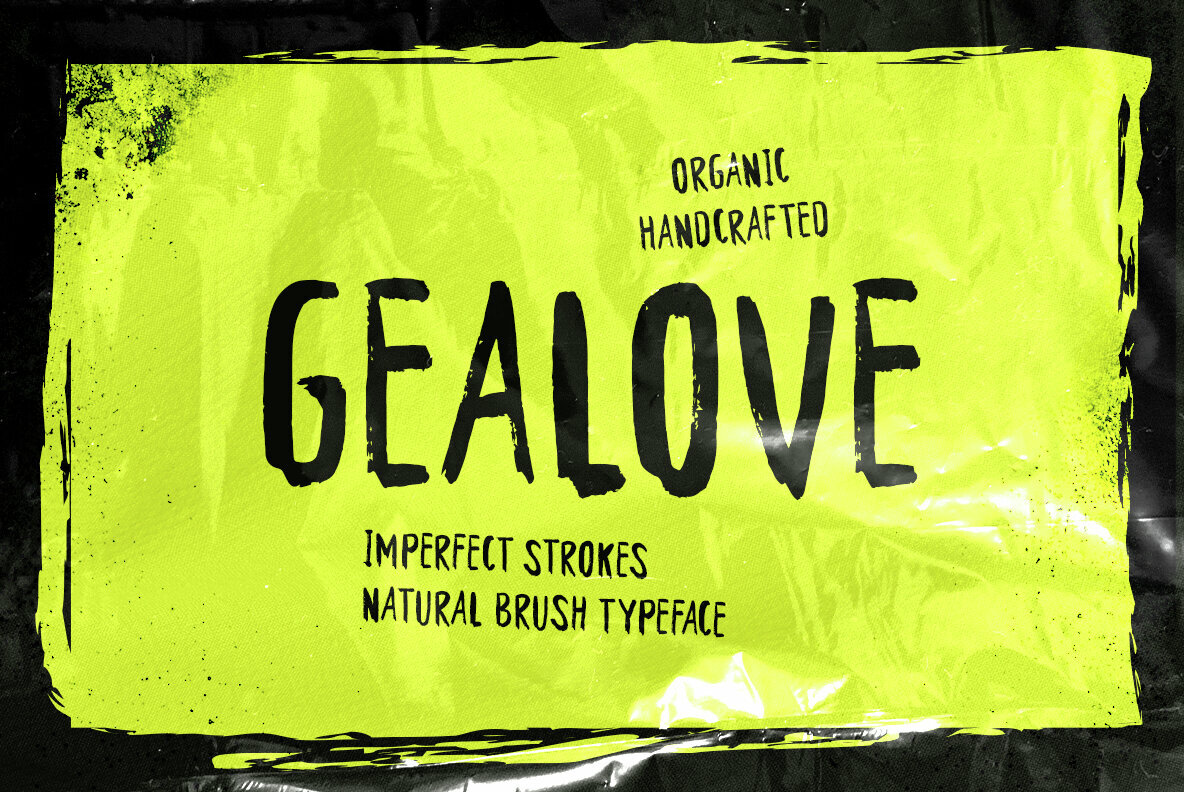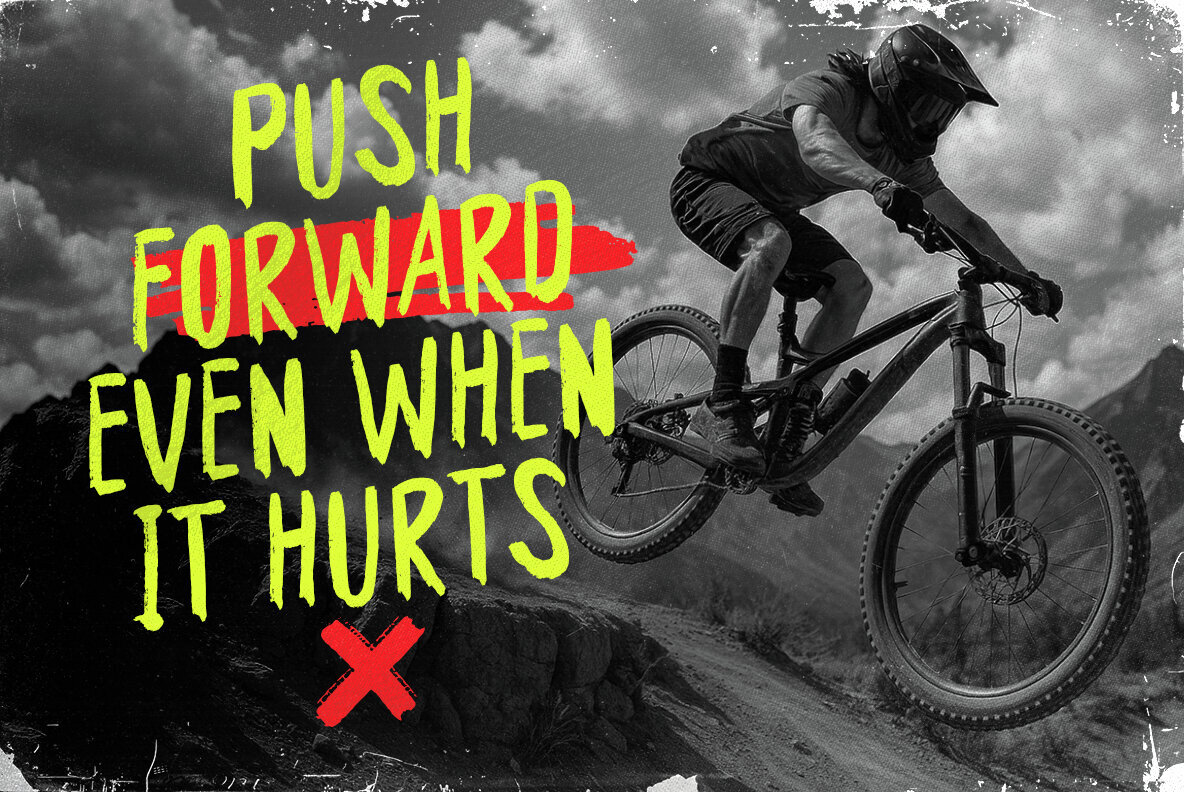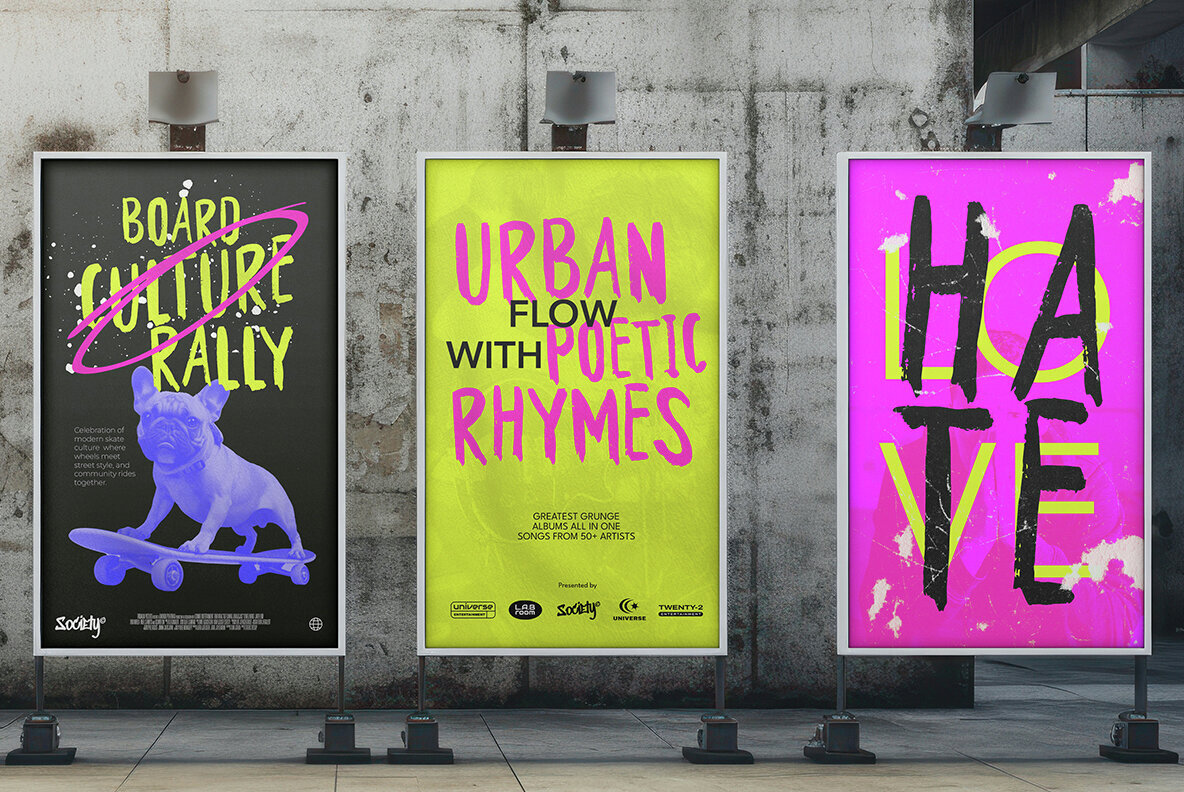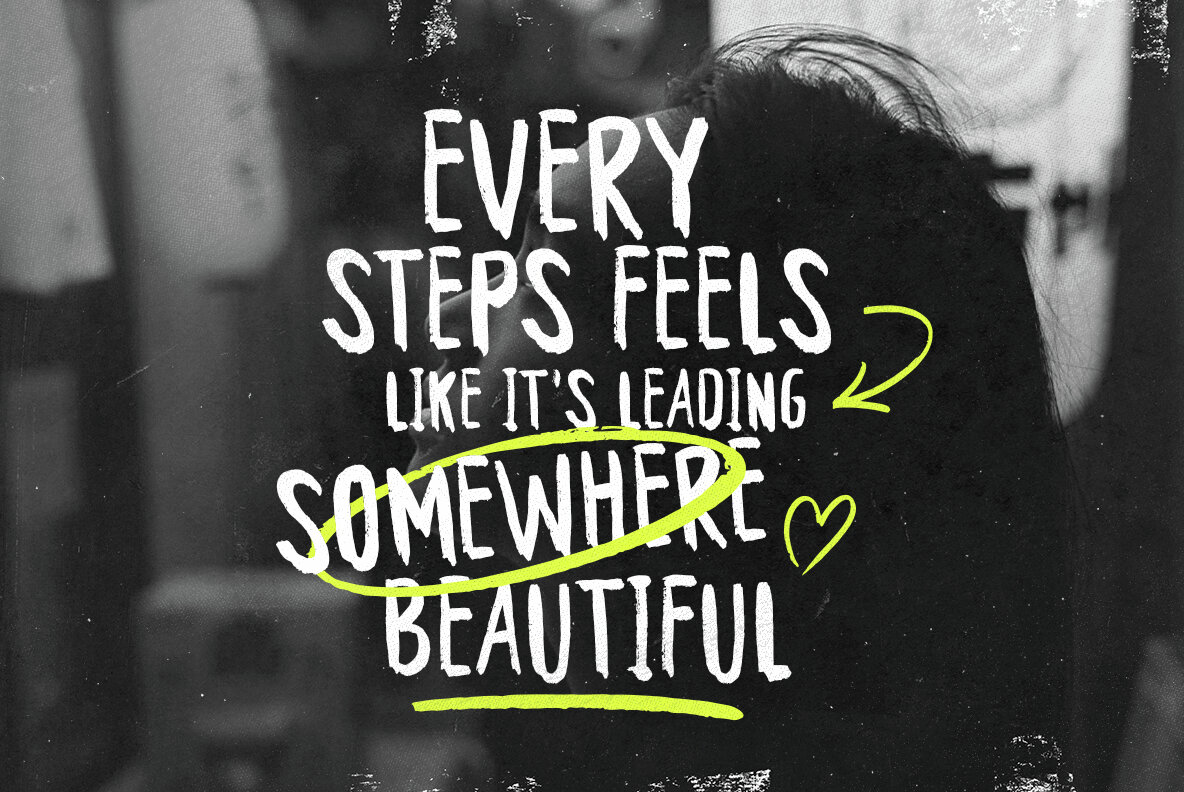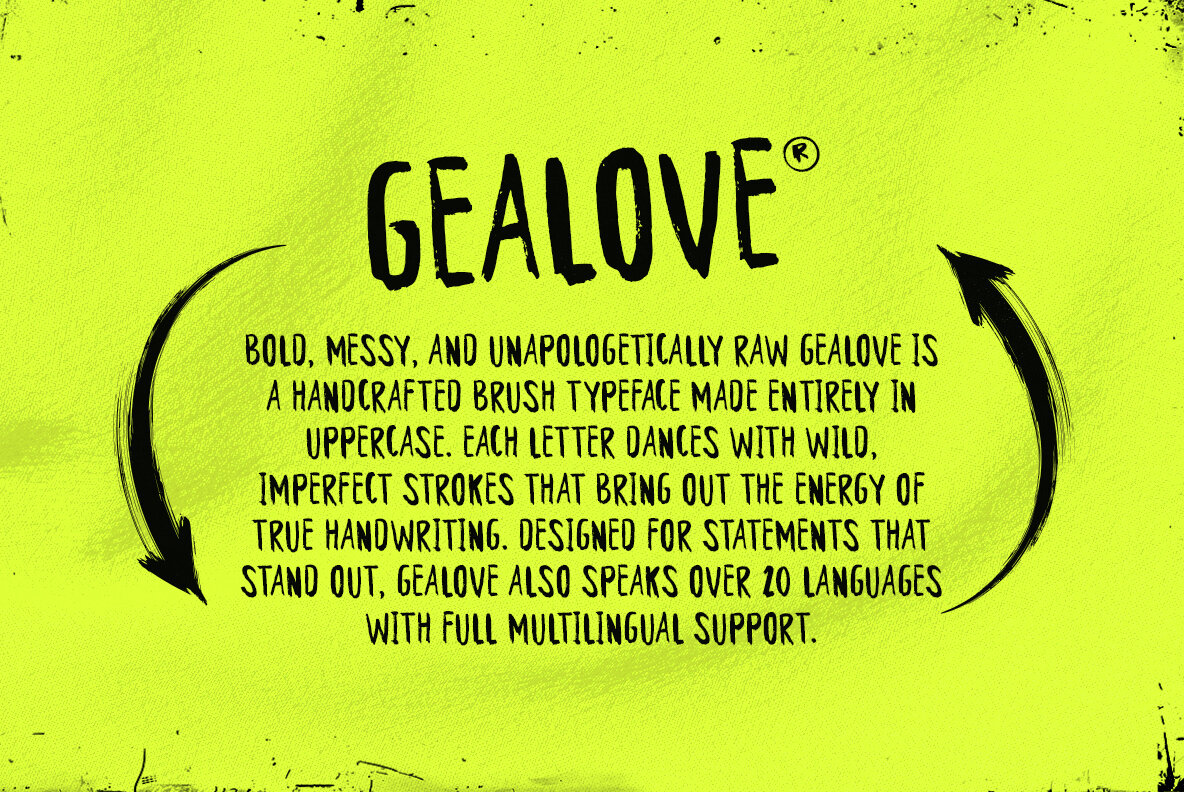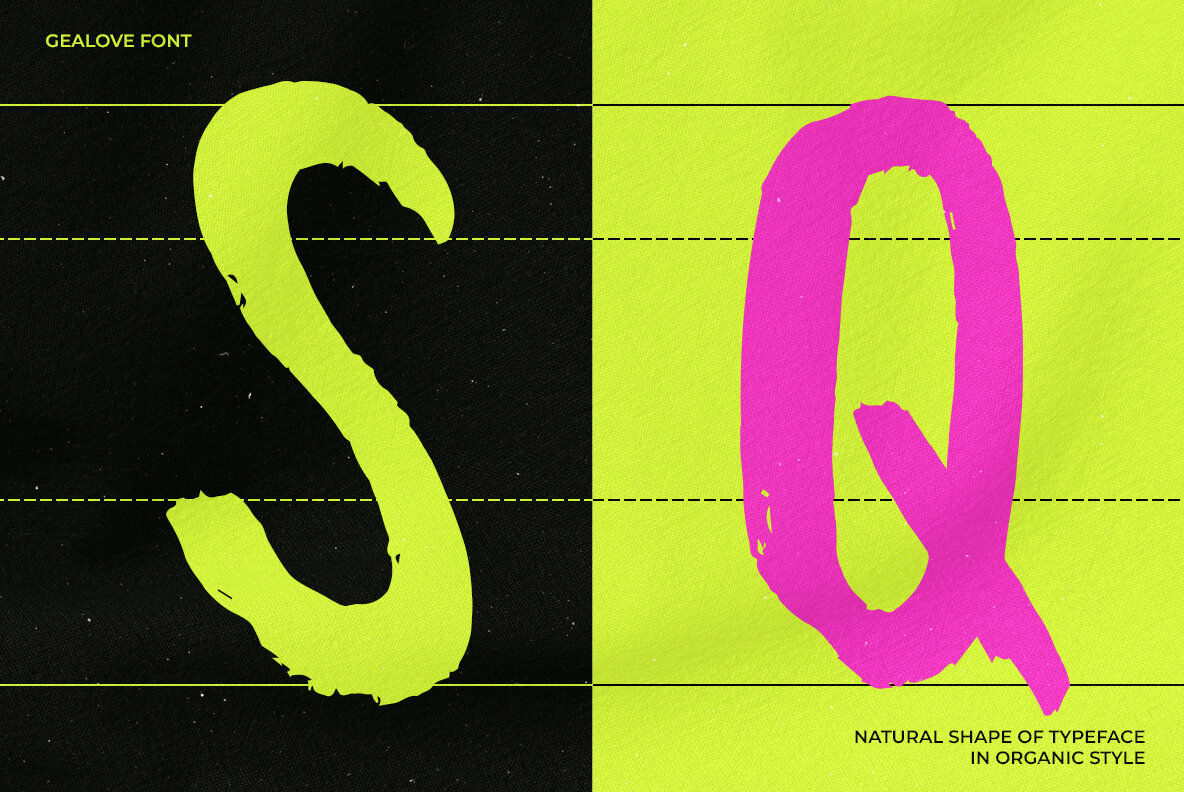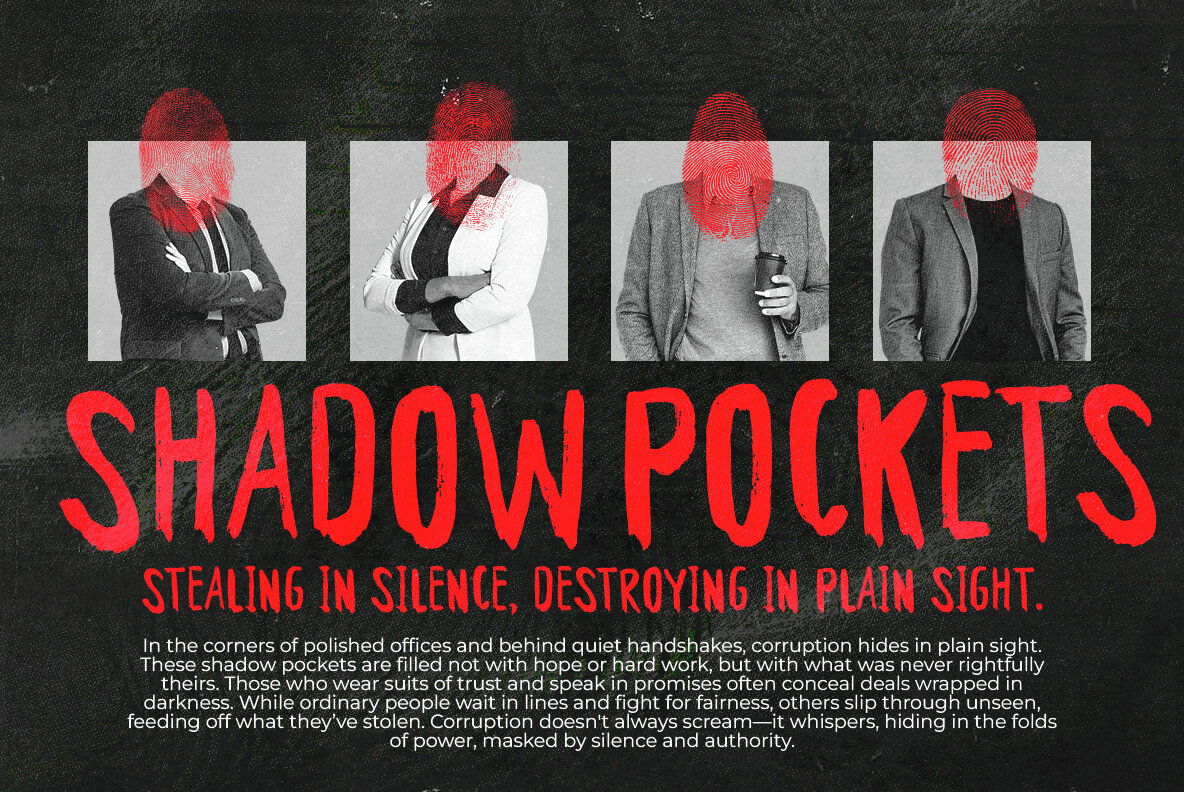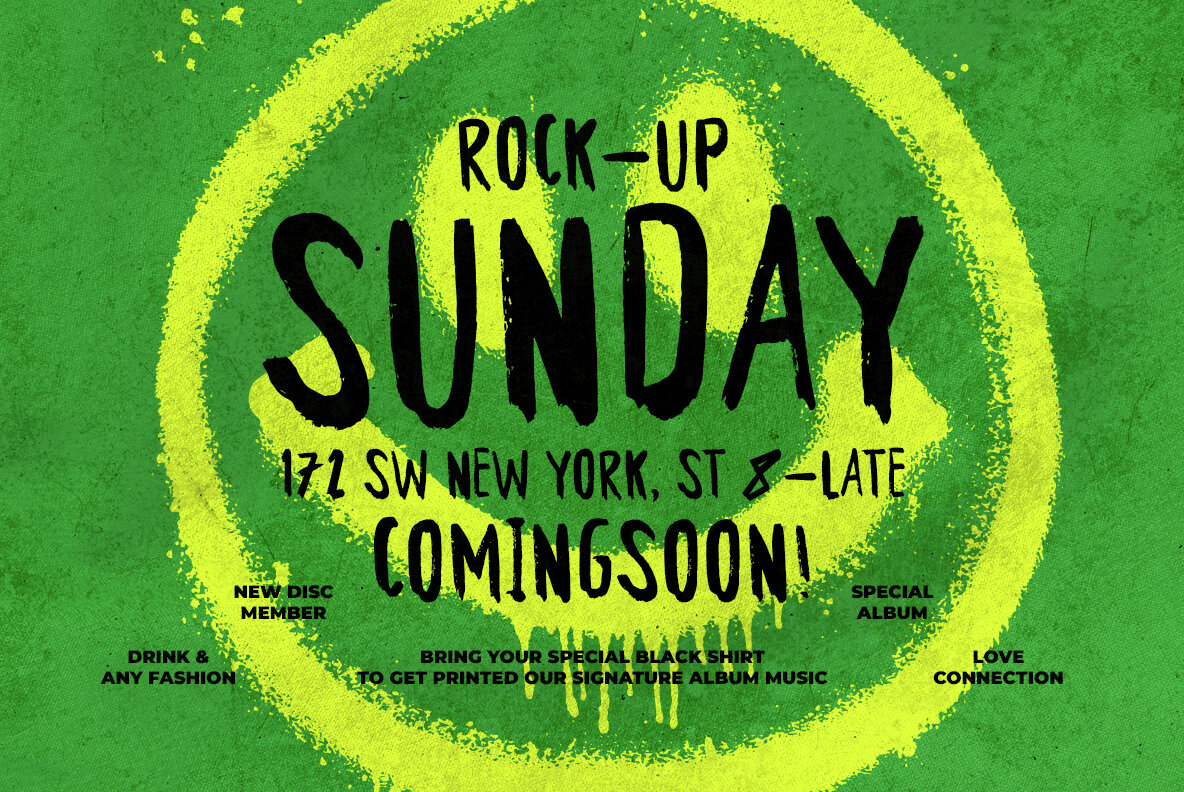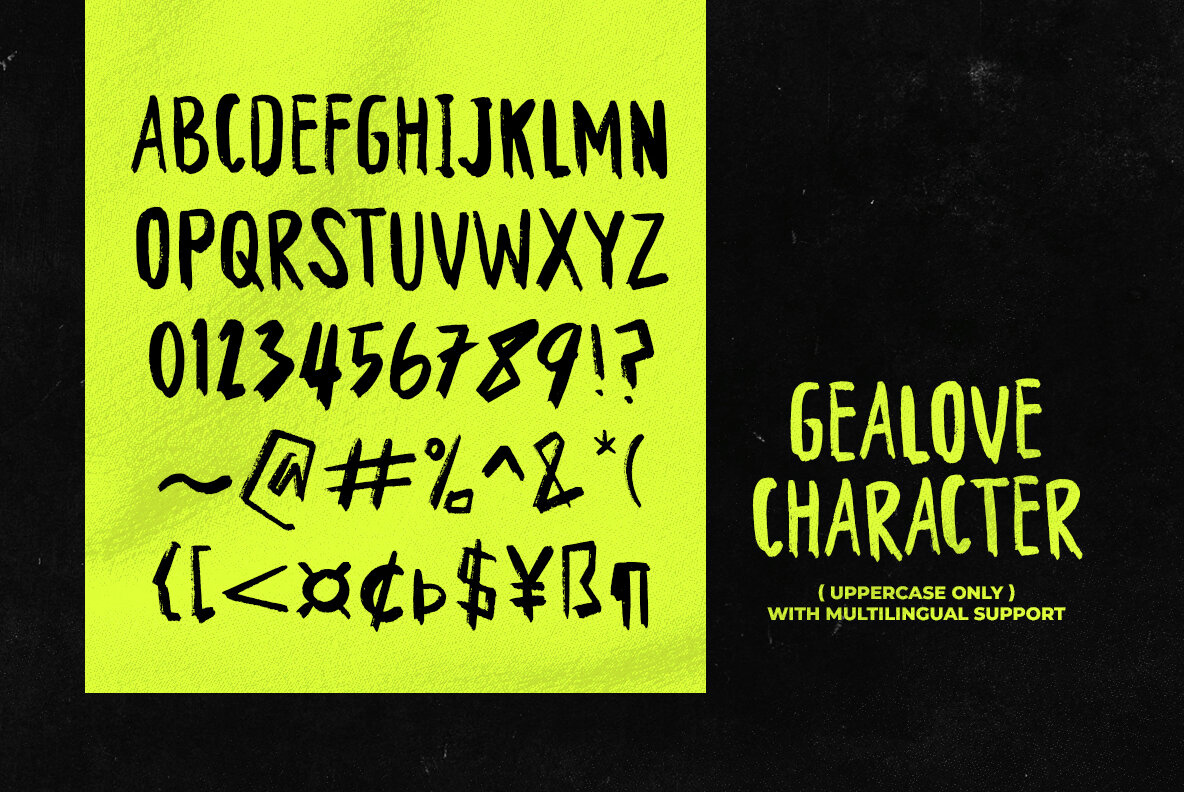
Gealove Font
Gealove Regular
Bold, uppercase, and dripping with the energy of raw self-expression, Gealove is a brush font that stands apart. Its messy natural strokes speak to the edginess of underground culture, making it the perfect choice for designs that demand attention. From bold poster art to the gritty branding of an underground band, Gealove is the quintessence of daring design.Gealove: The Typeface of Rebellion